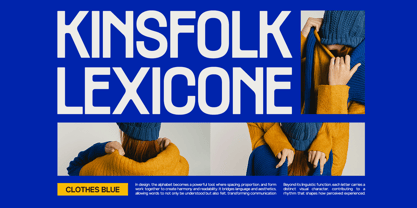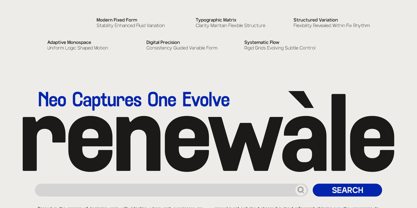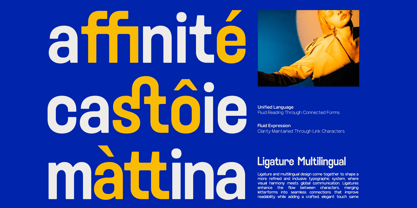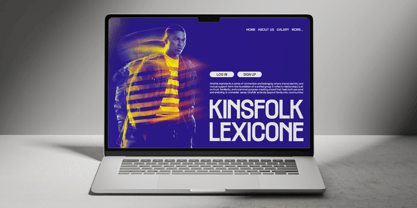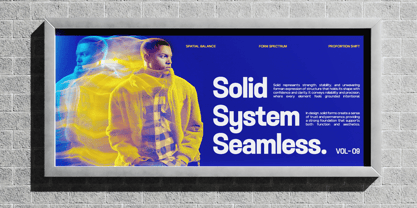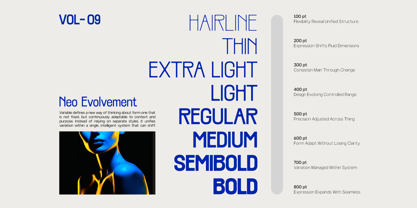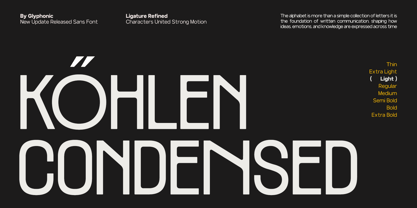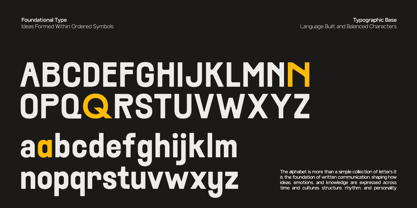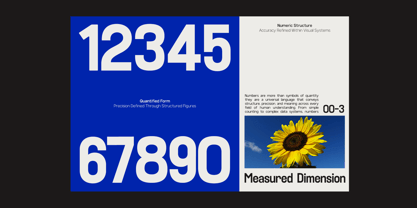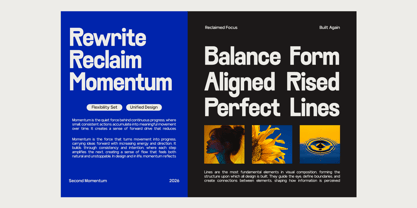
GC Kohlen
Die Schriftfamilie GC Kohlen wurde von Muhammad Hafiizh Solana entworfen und von Onyx Studio veröffentlicht. GC Kohlen enthält 8 Stile und Familienpaketoptionen. Mehr über diese Familie
GC Kohlen – Condensed Display is a modern condensed display typeface crafted to deliver refined elegance with a bold, contemporary edge. Featuring tall proportions, clean geometry, and carefully balanced spacing, GC Kohlen creates a striking visual presence while maintaining exceptional readability and sophistication.
Designed with sleek condensed forms and subtle modern detailing, GC Kohlen offers a confident typographic voice that excels in large-scale compositions. Its streamlined structure allows designers to maximize visual impact within limited space, making it ideal for branding, editorial headlines, posters, advertising campaigns, packaging, and premium visual identities.
Features :
* Modern Condensed Display Typeface
* Tall & Elegant Letterforms
* Clean Geometric Construction
* Refined Ligature Features
* Strong Visual Presence
* Available in Multiple Weights
* Perfect for Headlines & Editorial Design
* Suitable for Branding, Posters, Packaging & Advertising
* Multilingual Support (170+ Languages)
GC Kohlen delivers refined impact — a modern condensed display typeface designed to combine elegance, clarity, and confident visual expression.